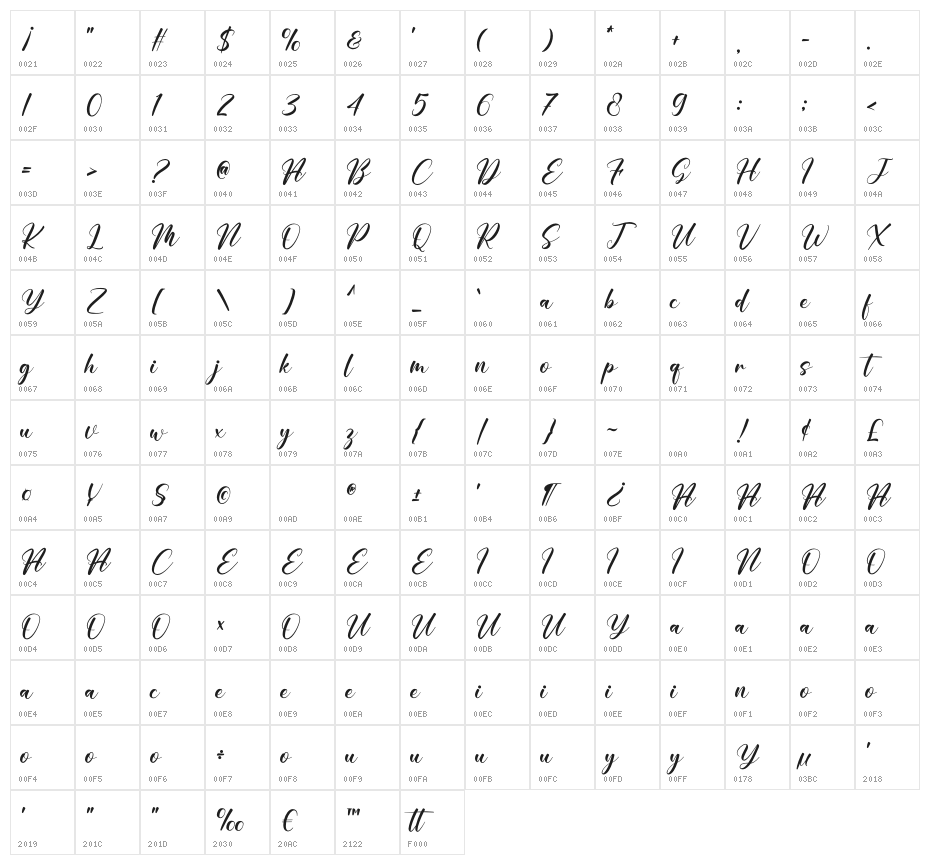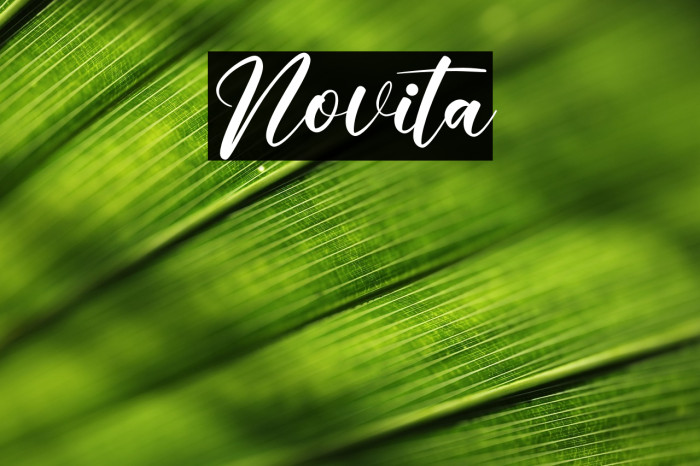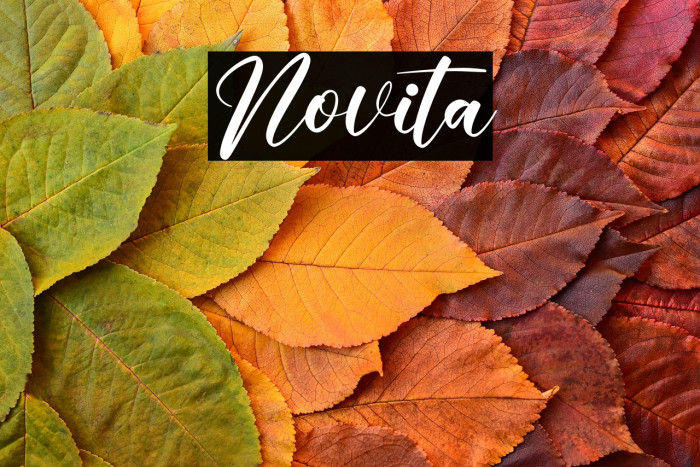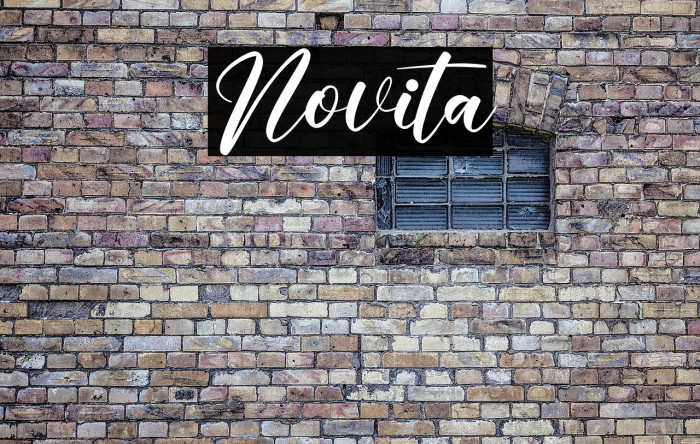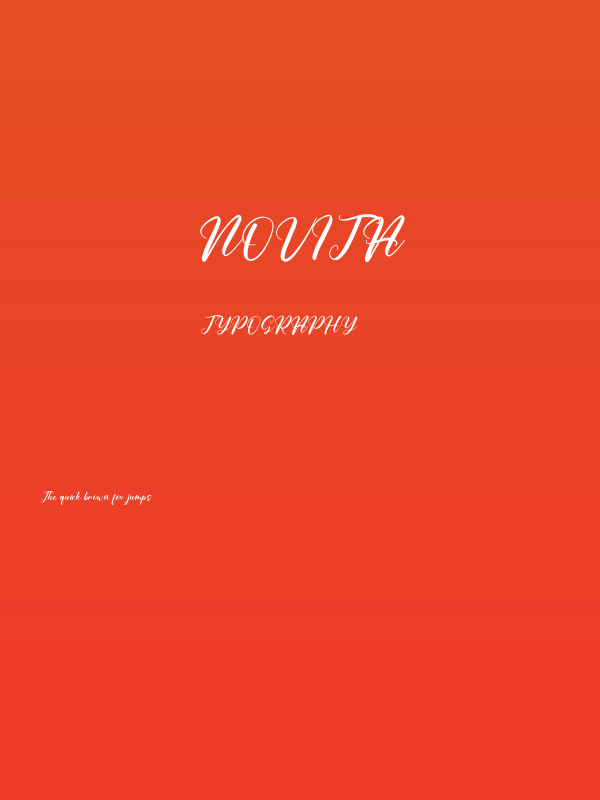
Novita Font
Novita Description
Elegant script font with flowing, connected letters and a handwritten style.
| Use Case | Logos, Invitations |
| Proposed Projects | Invitations, greeting cards, branding. |